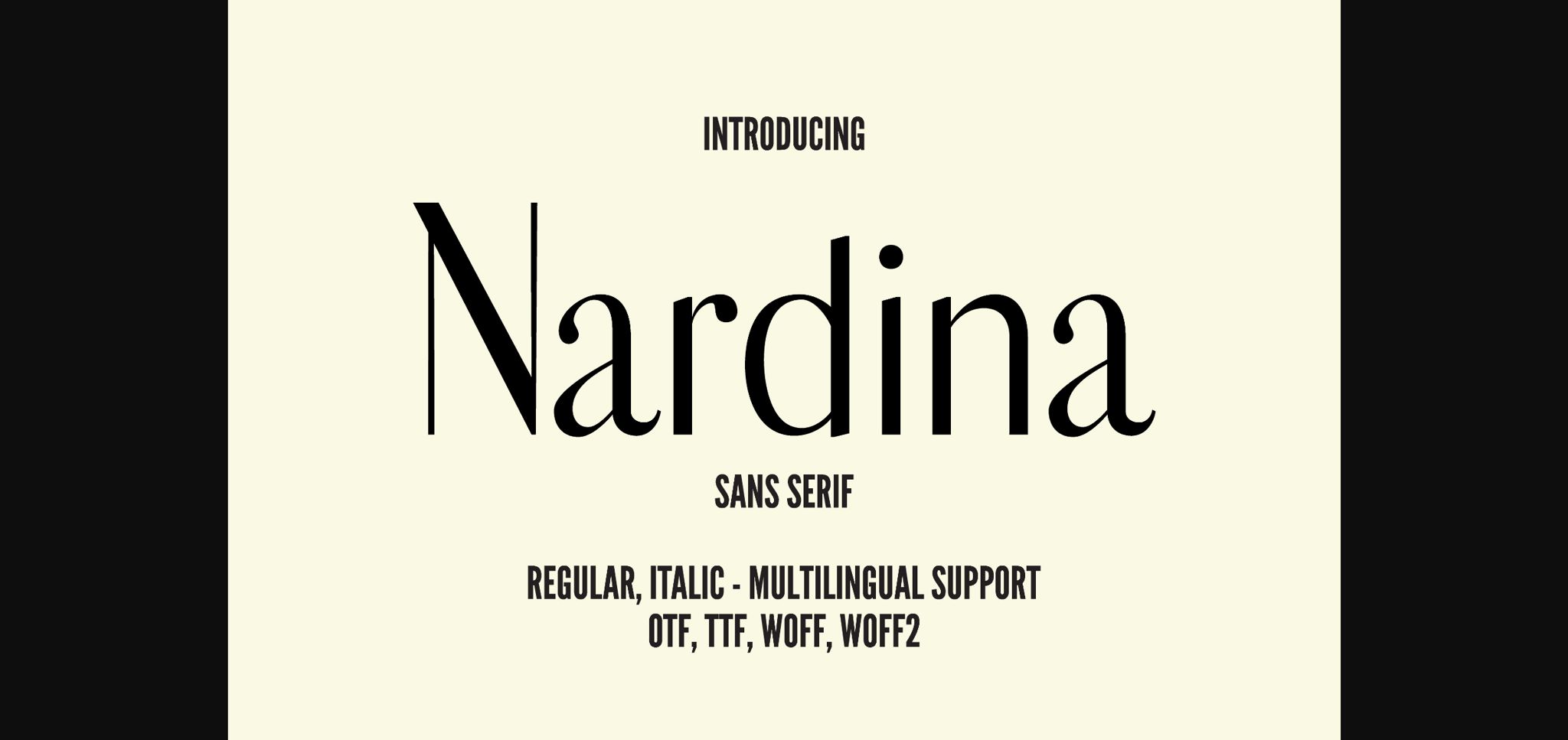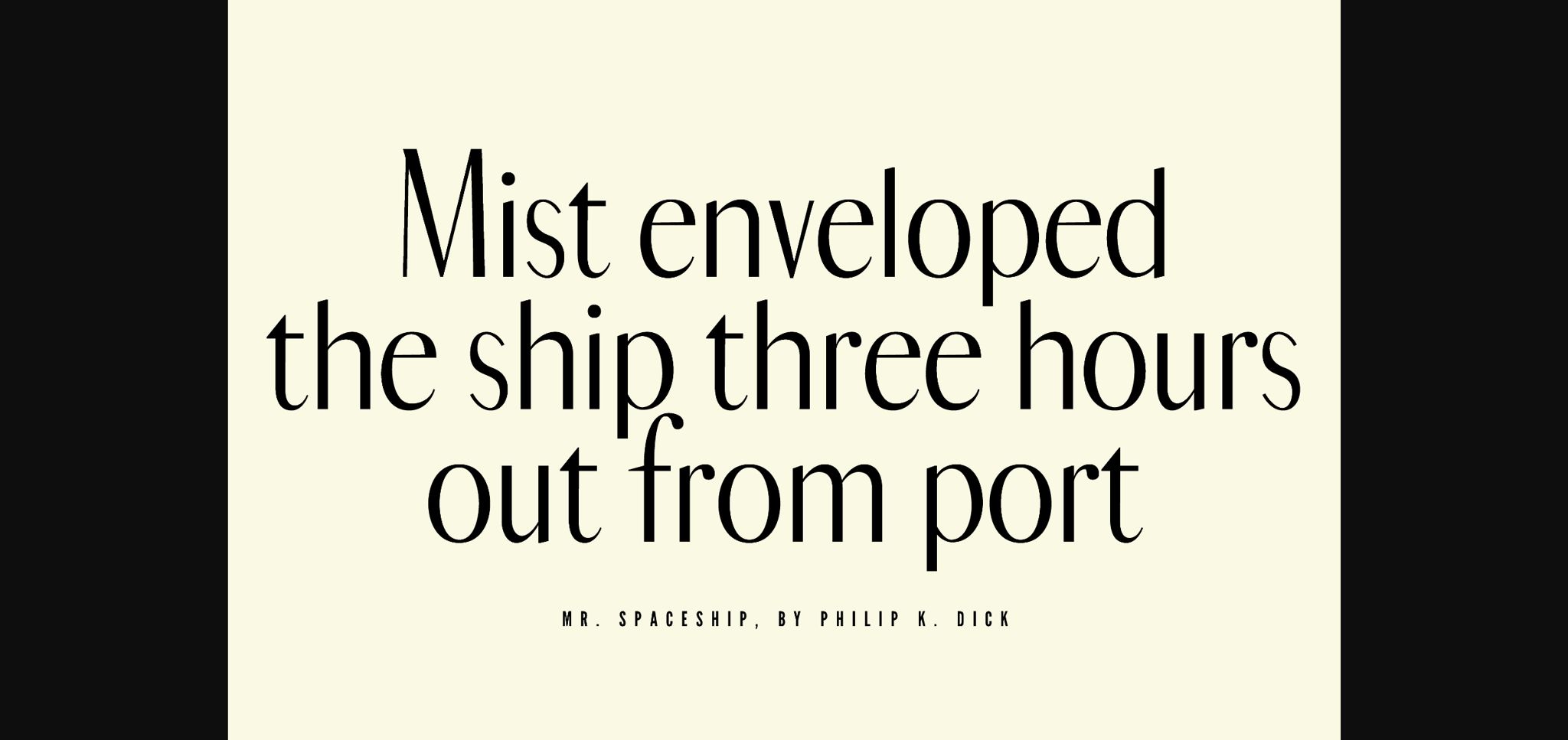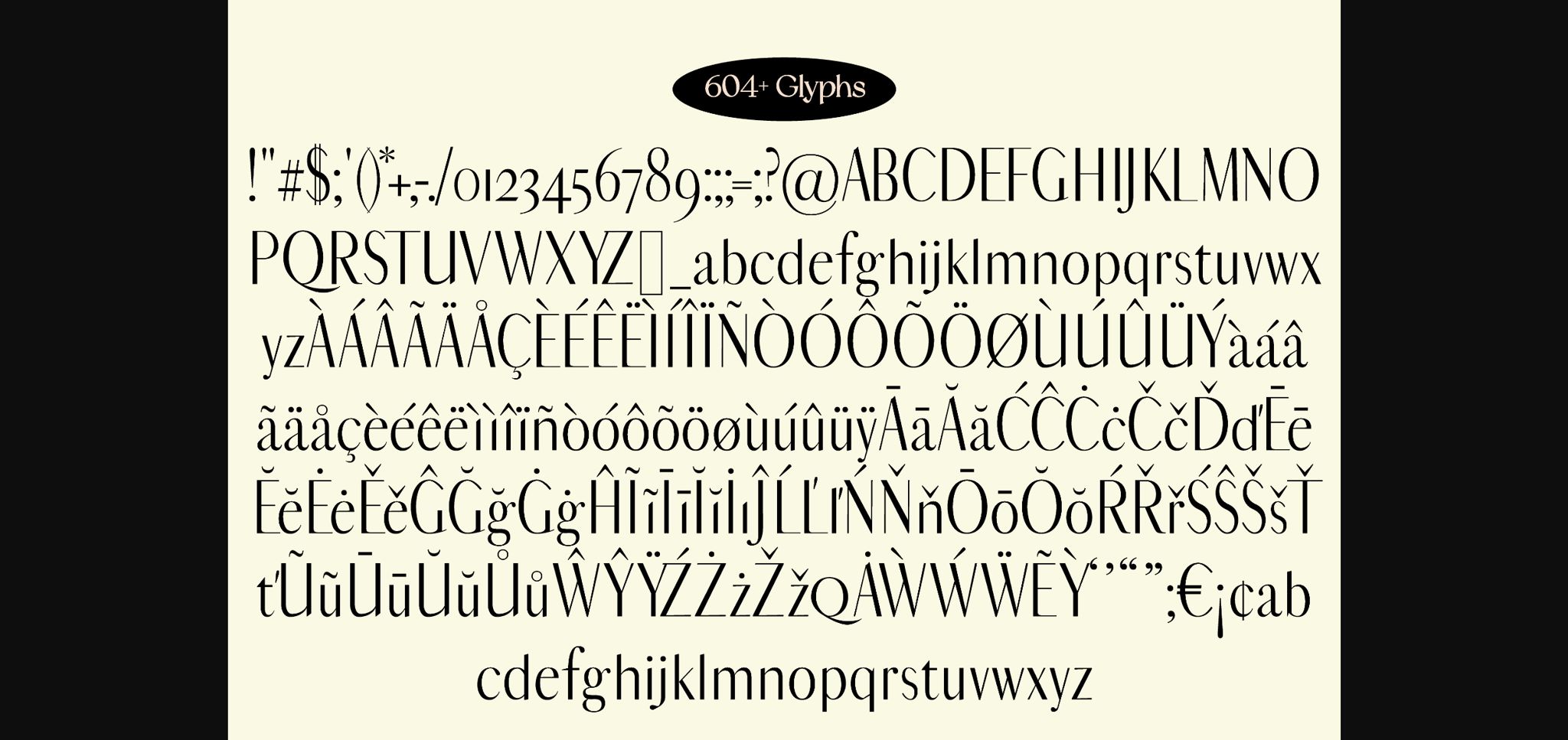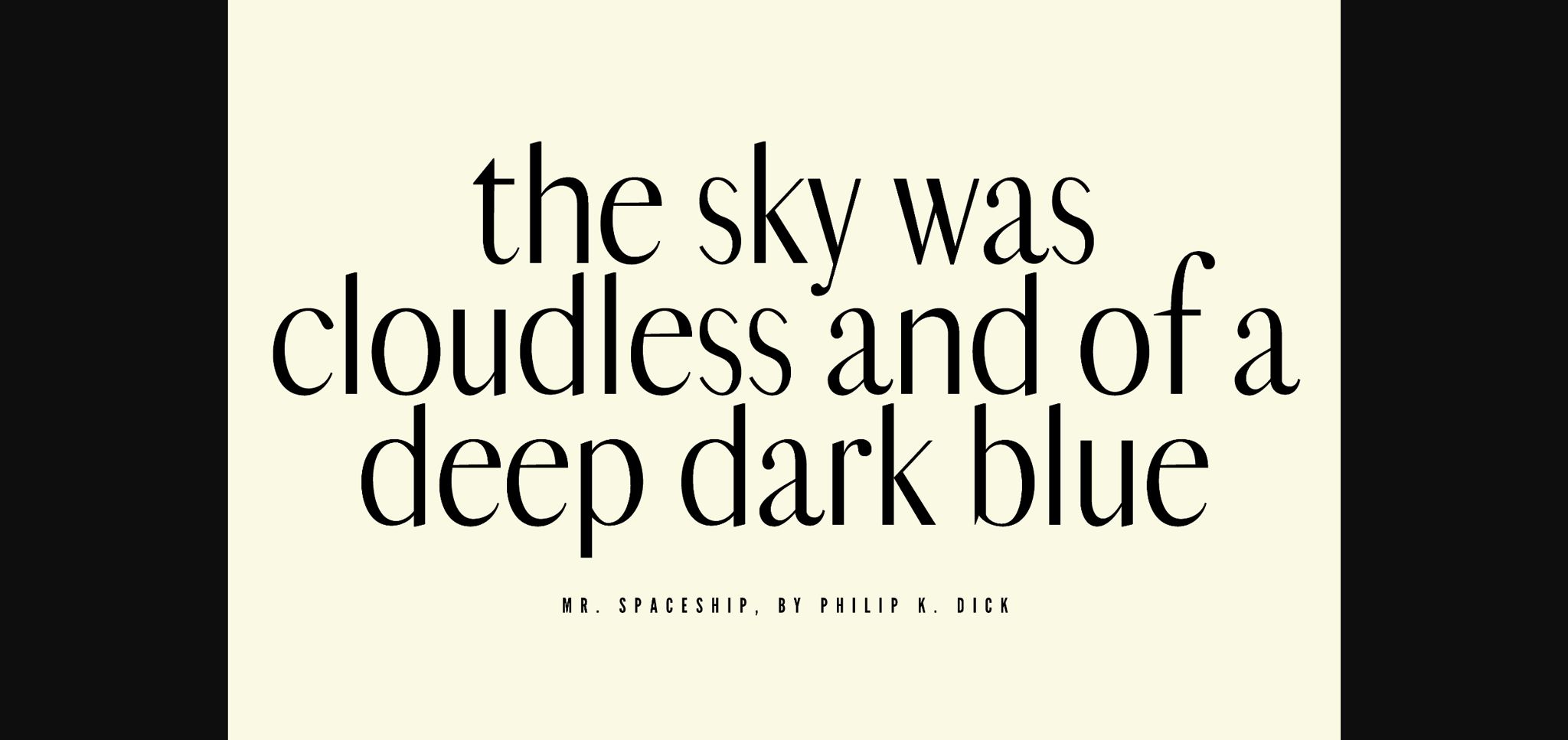
About Nardina Font
Discover Nardina, a chic and elegant sans-serif typeface that seamlessly blends timeless elegance with modern sophistication. Its clean lines, extensive glyph set, and distinctive legibility make it a versatile choice for designers seeking to elevate their projects. Nardina is the go-to typeface for adding a touch of class to logos, websites, and branding, making it a must-have for those who value elegance and modernity in typography.